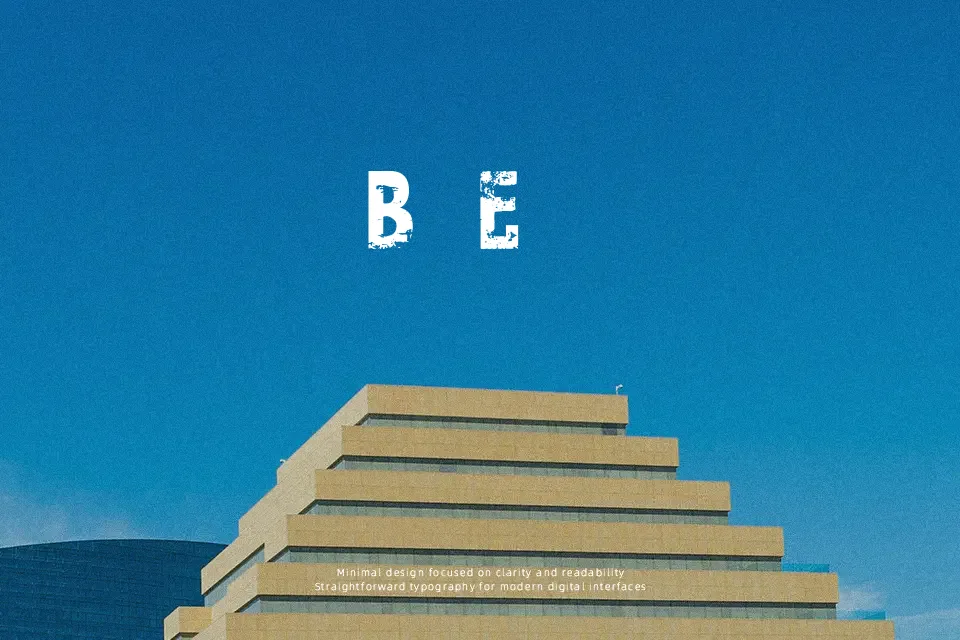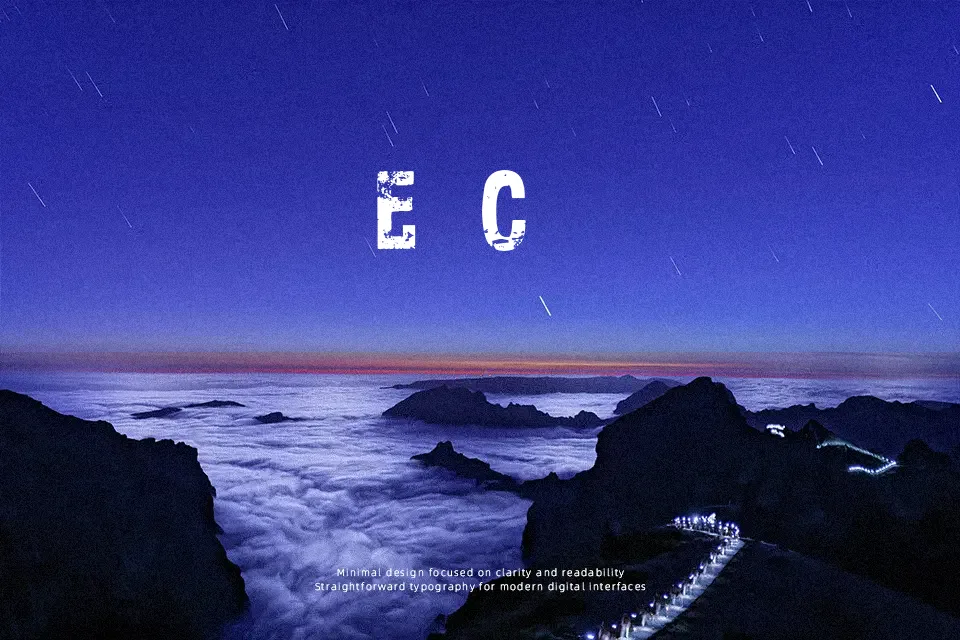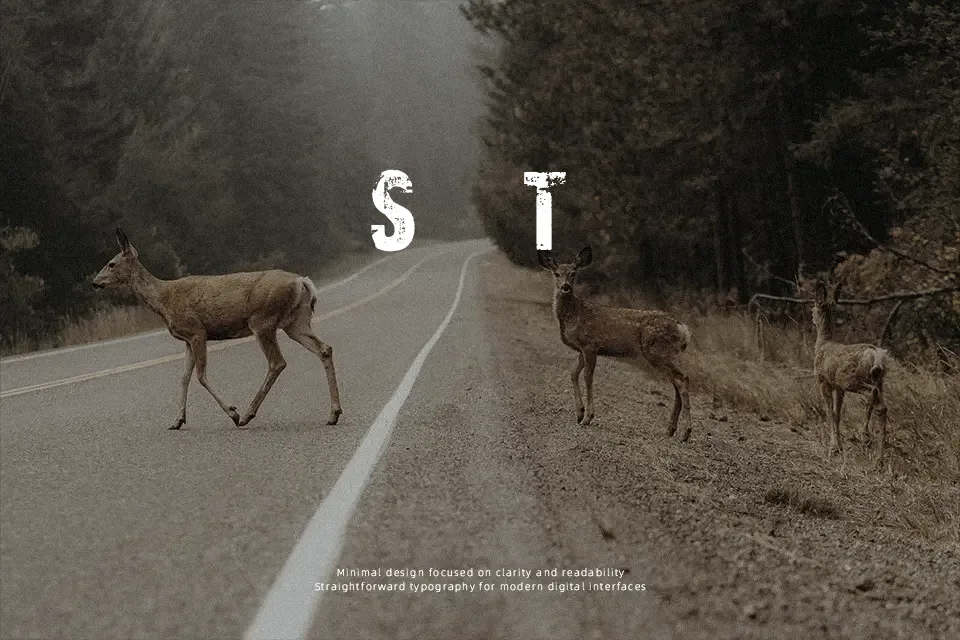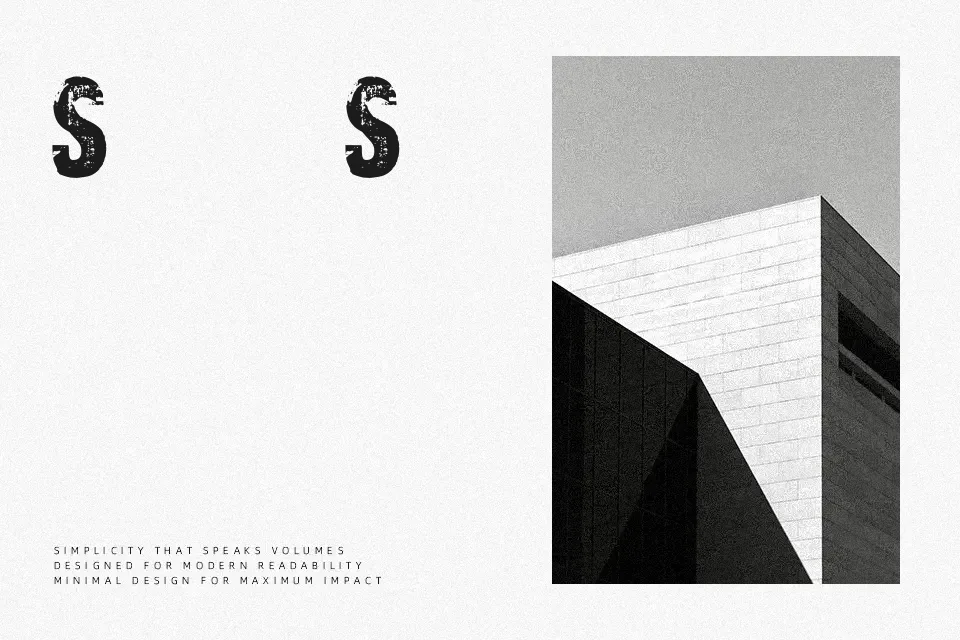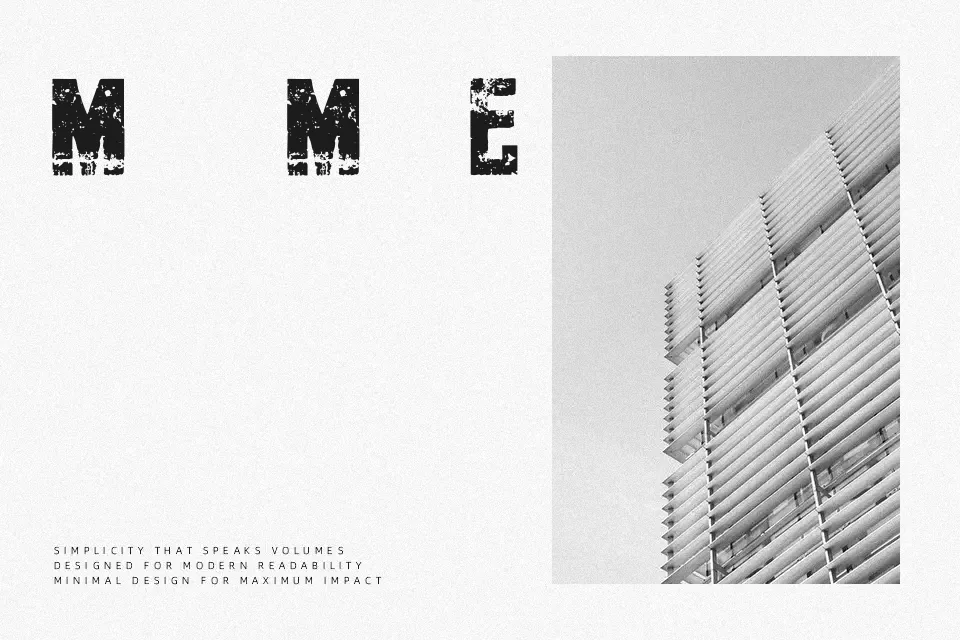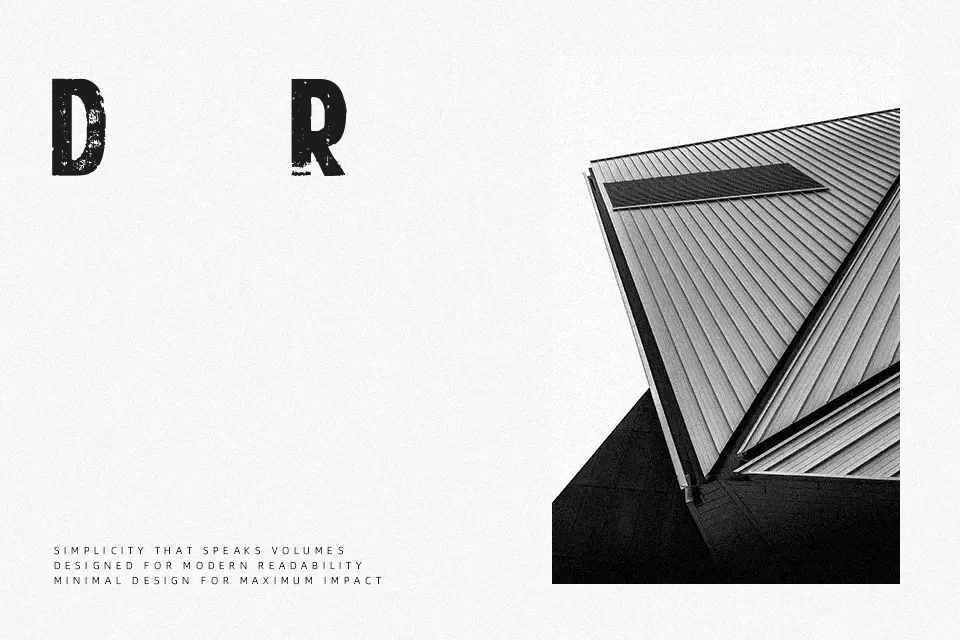
CF Xerography Font
Designed by Cloutierfontes
The letterforms of CF Xerography Font make their strongest impression at substantial headline scales where the eroded details remain distinctly visible. Built on a sturdy, condensed sans-serif foundation, the typeface features heavy strokes scarred by horizontal static, toner dropouts, and irregular edge erosion mimicking mechanical photocopy machines. Proportions remain relatively uniform throughout the uppercase glyphs, while character spacing is set snugly to maintain visual cohesion across short titles. Legibility is preserved in brief phrases, but the dense, high-contrast degradation significantly hinders reading ease in continuous text settings. Small captions easily dissolve into unreadable visual noise, making the design far more effective for impactful graphic applications.
vintage photocopy posters, punk rock album covers, skate apparel graphics, dystopian book titles
extended body paragraphs, corporate financial reports, mobile interface labels, small print disclaimers
Perfect for advertising, headline, and music, with a bold and decorative style.